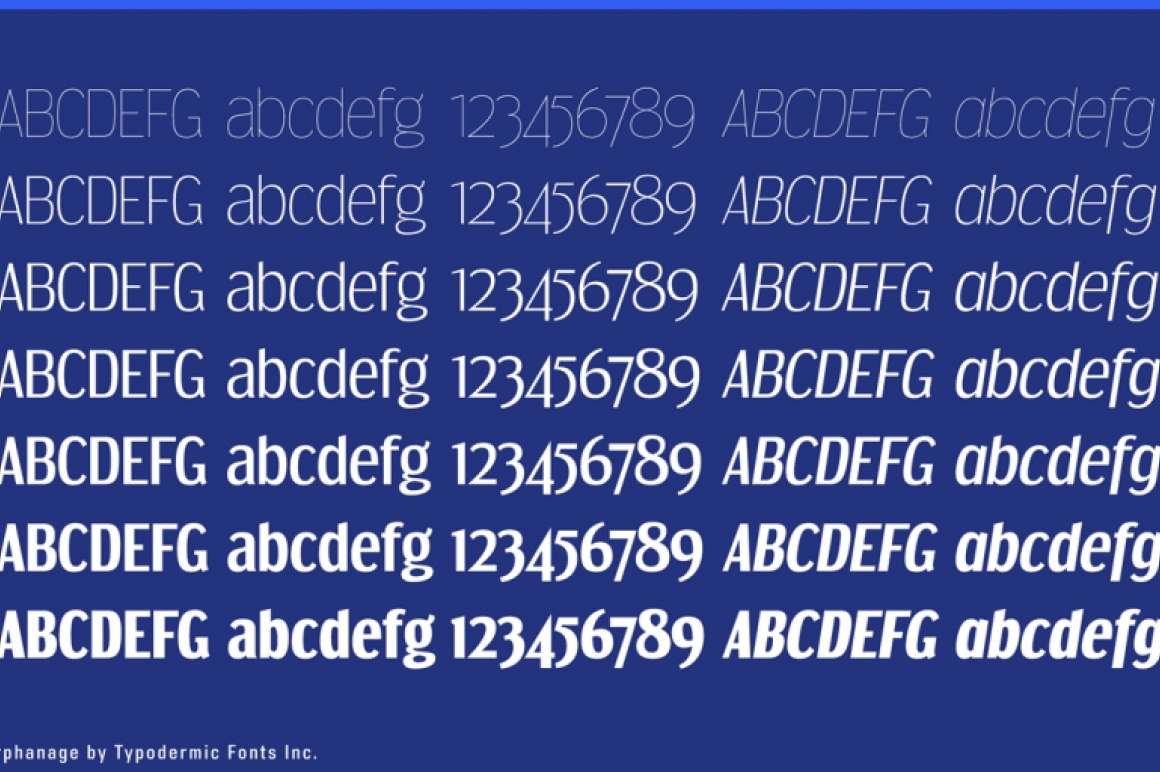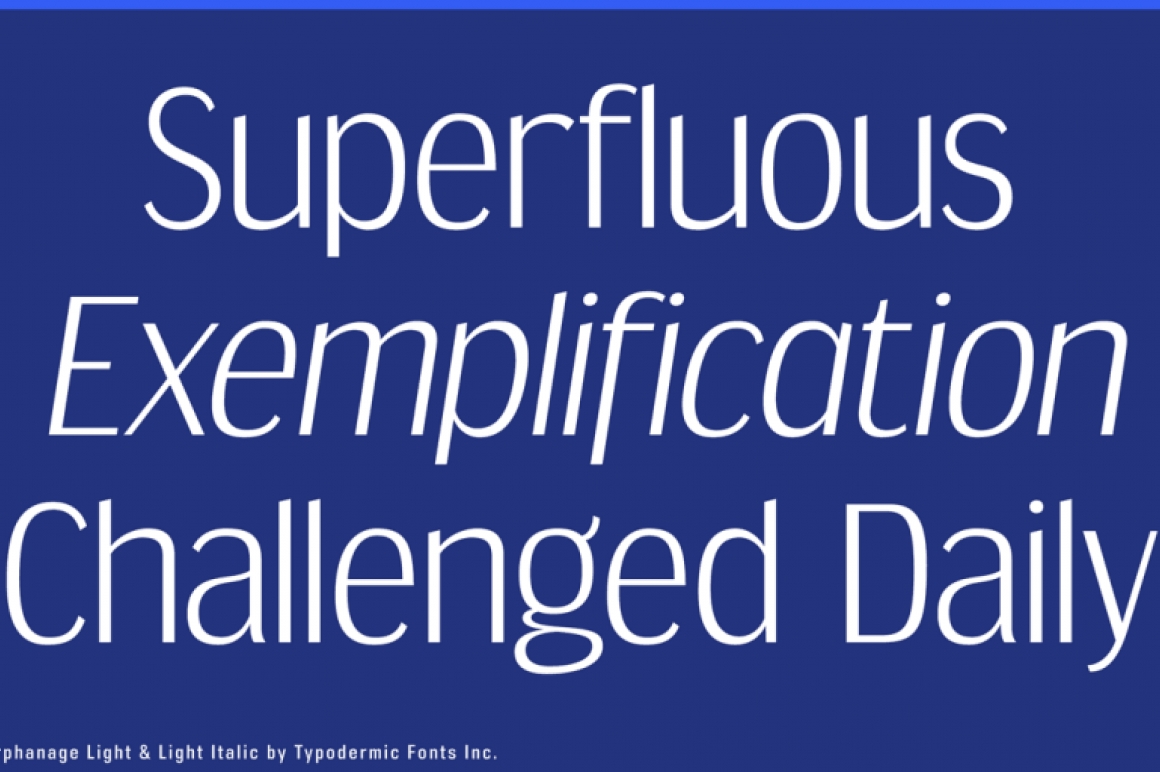
Dream Orphanage
Dream Orphanage is a high quality reconstruction of the 1990s freeware classic, Dream Orphans. The old-style g is still available as an OpenType alternate as well as a new, simple g. The regular style is free!